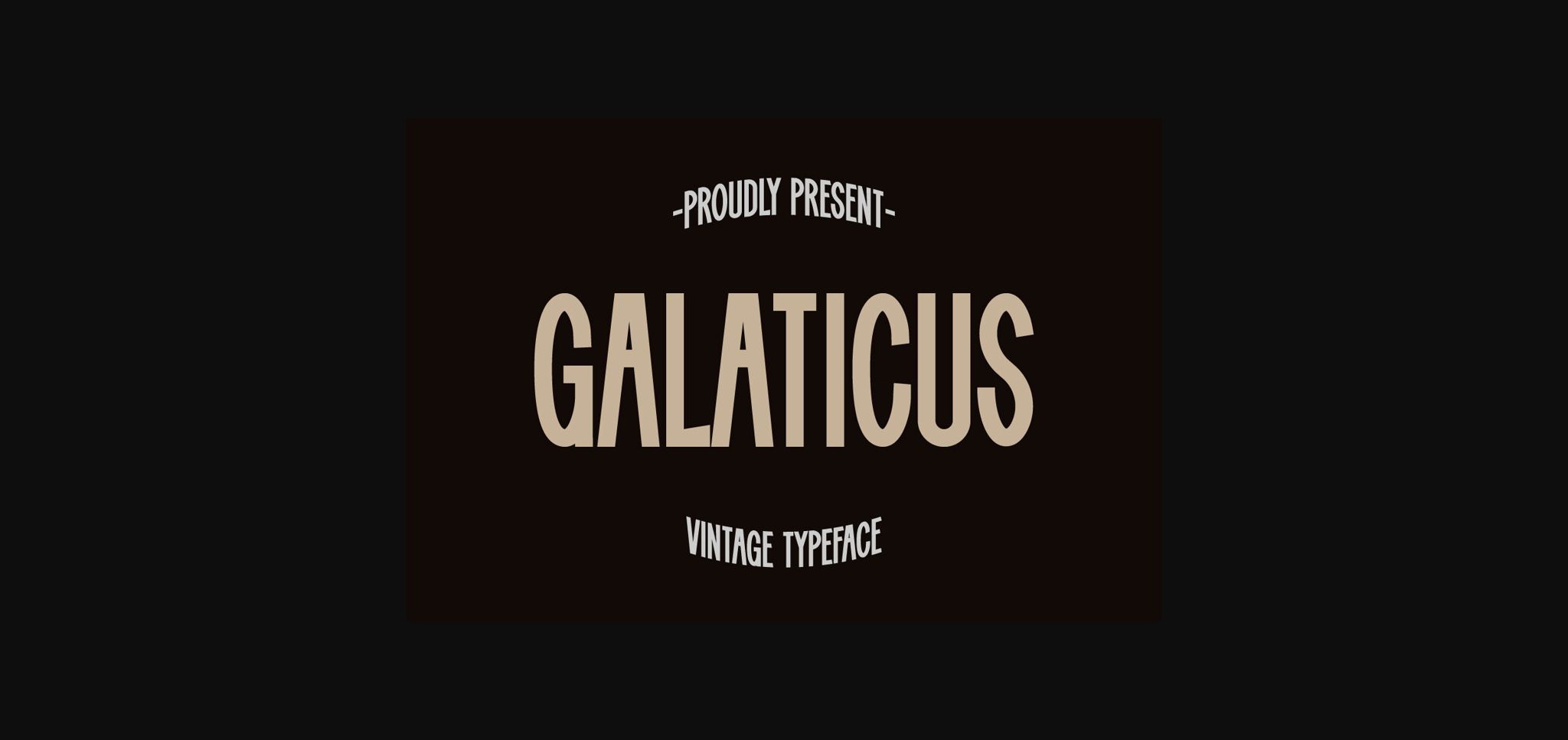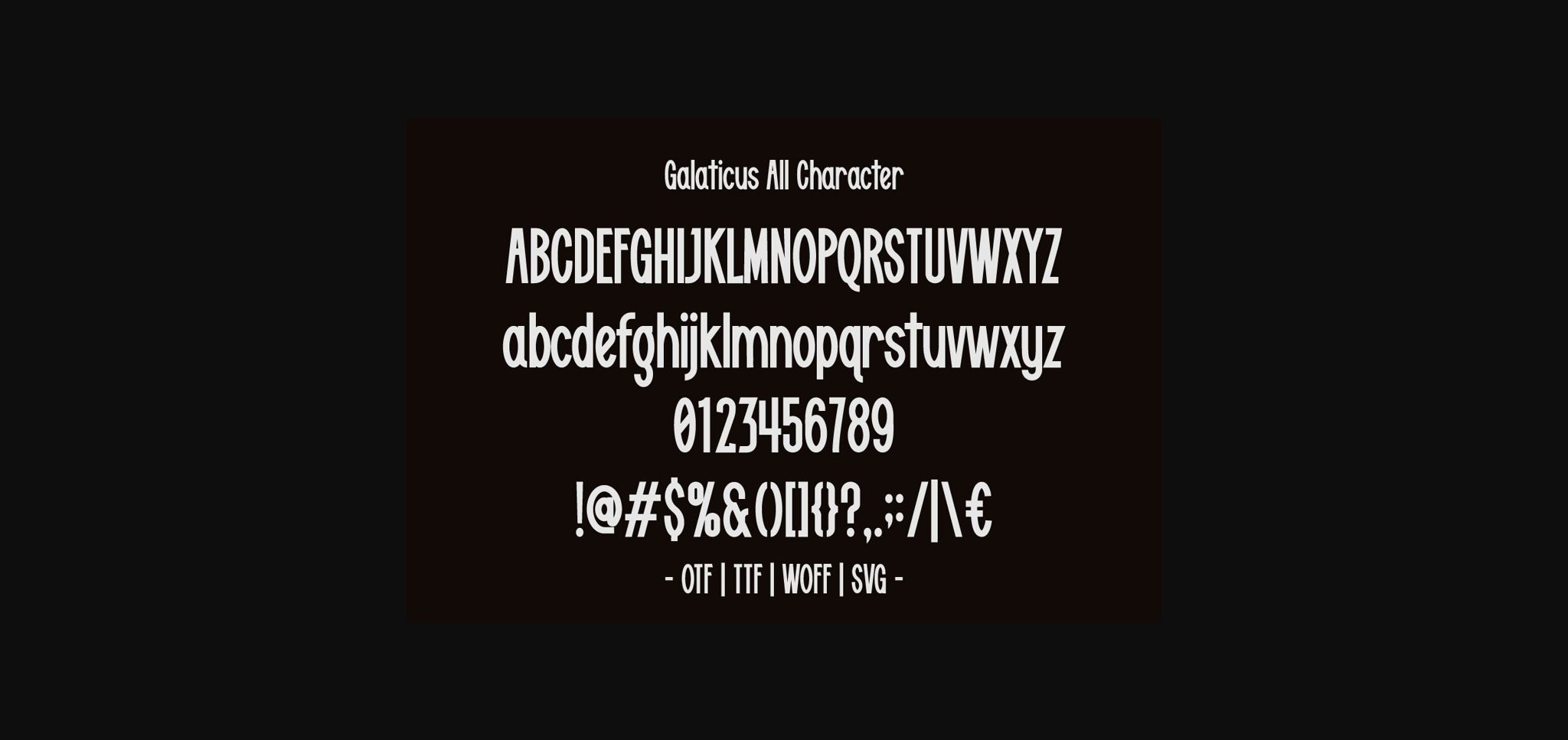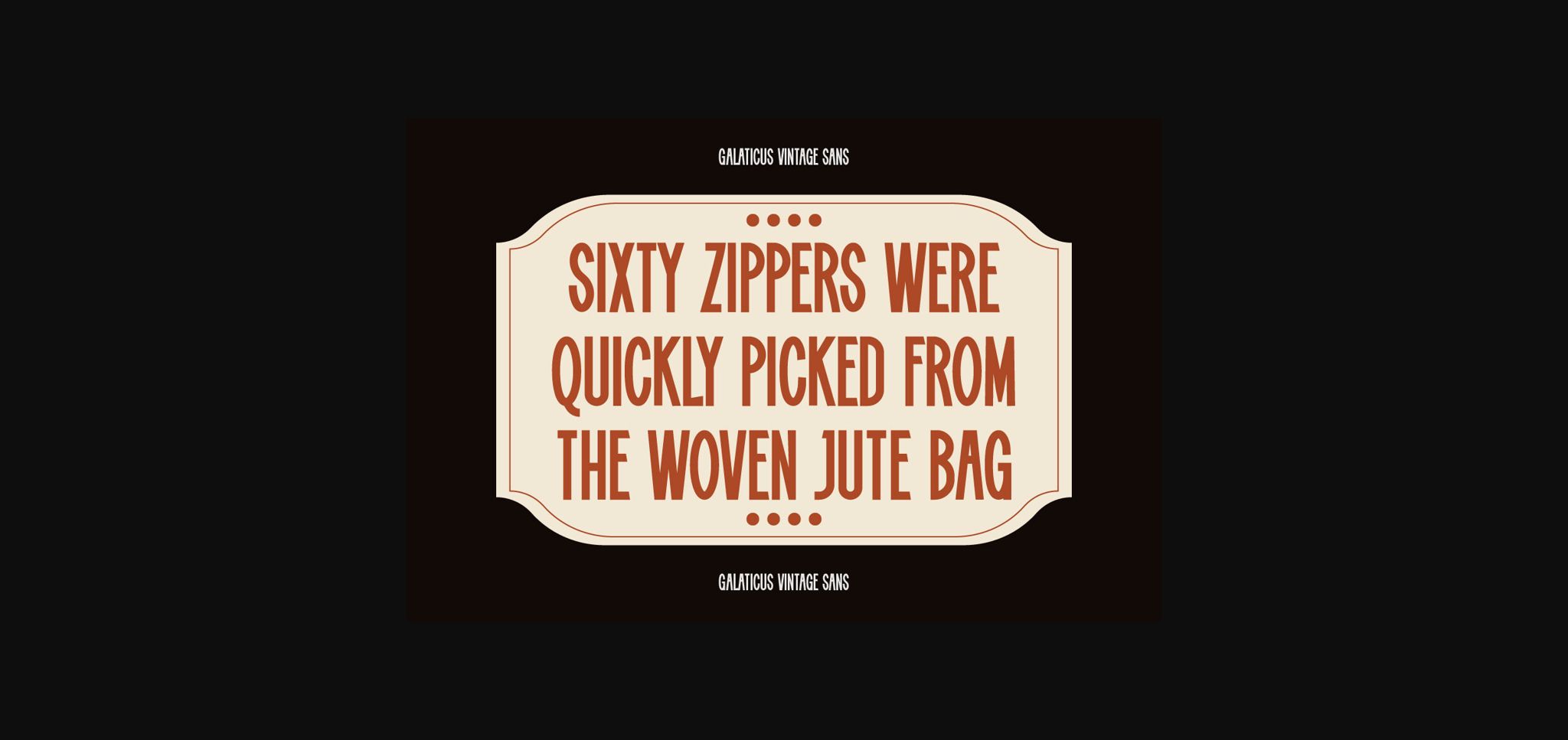
About Galaticus Font
Galaticus is a bold and cool sans serif font. It’s perfect for labels, quotes, posters, DIY projects, branding, packaging, greeting cards, websites, photography overlays, signs, window art, scrapbooking, tags and so much more!